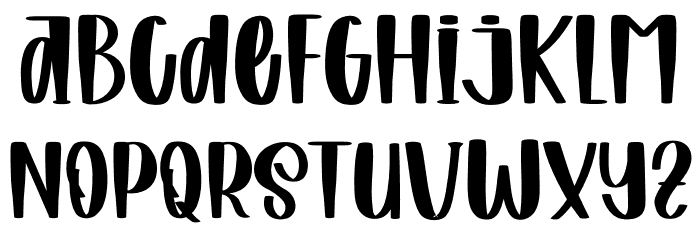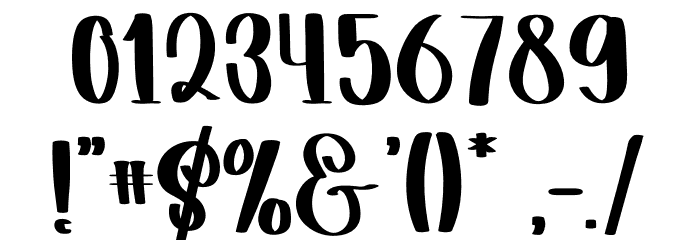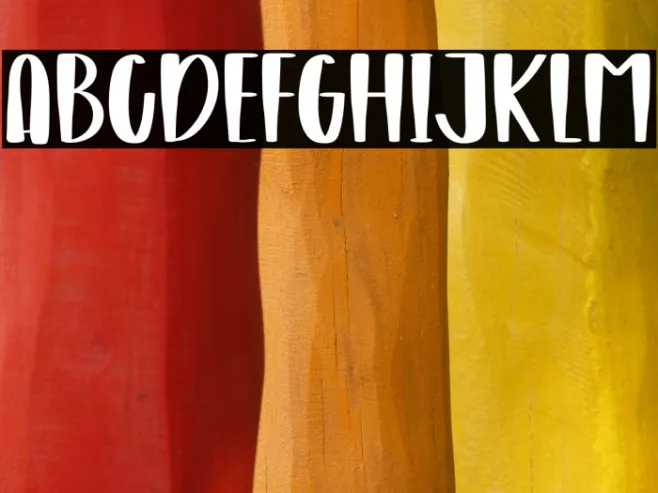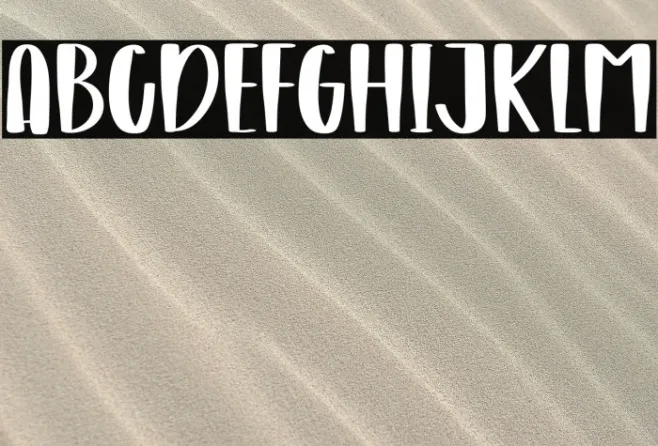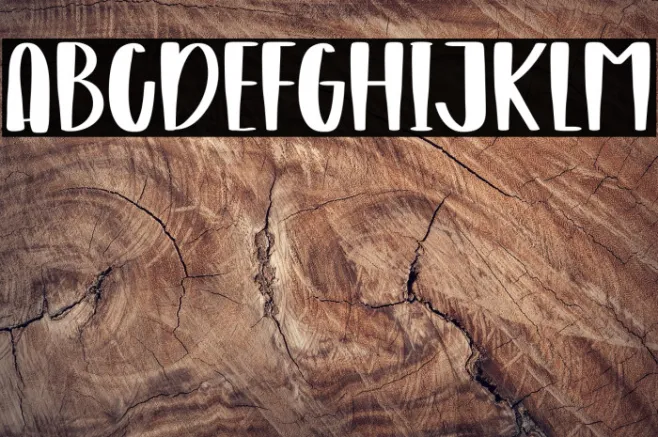
Good Looking Font
This font features a bold and playful design with a handwritten style that exudes a sense of fun and creativity. The characters are slightly condensed with a smooth flow, giving it a lively and energetic appearance. The uppercase and lowercase letters maintain a consistent style, with rounded edges and a slight slant that adds to its informal charm. The numbers and special characters are equally expressive, making this font versatile for various creative projects. Its bold strokes and unique character shapes make it stand out, perfect for designs that require a touch of personality and flair.
A bold, playful handwritten font with a lively and energetic style.
- Font: Good Looking
- Proposed Projects: Ideal for greeting cards, posters, children's books, and playful branding.
- Category: Handwritten
- Overall Style: Playful